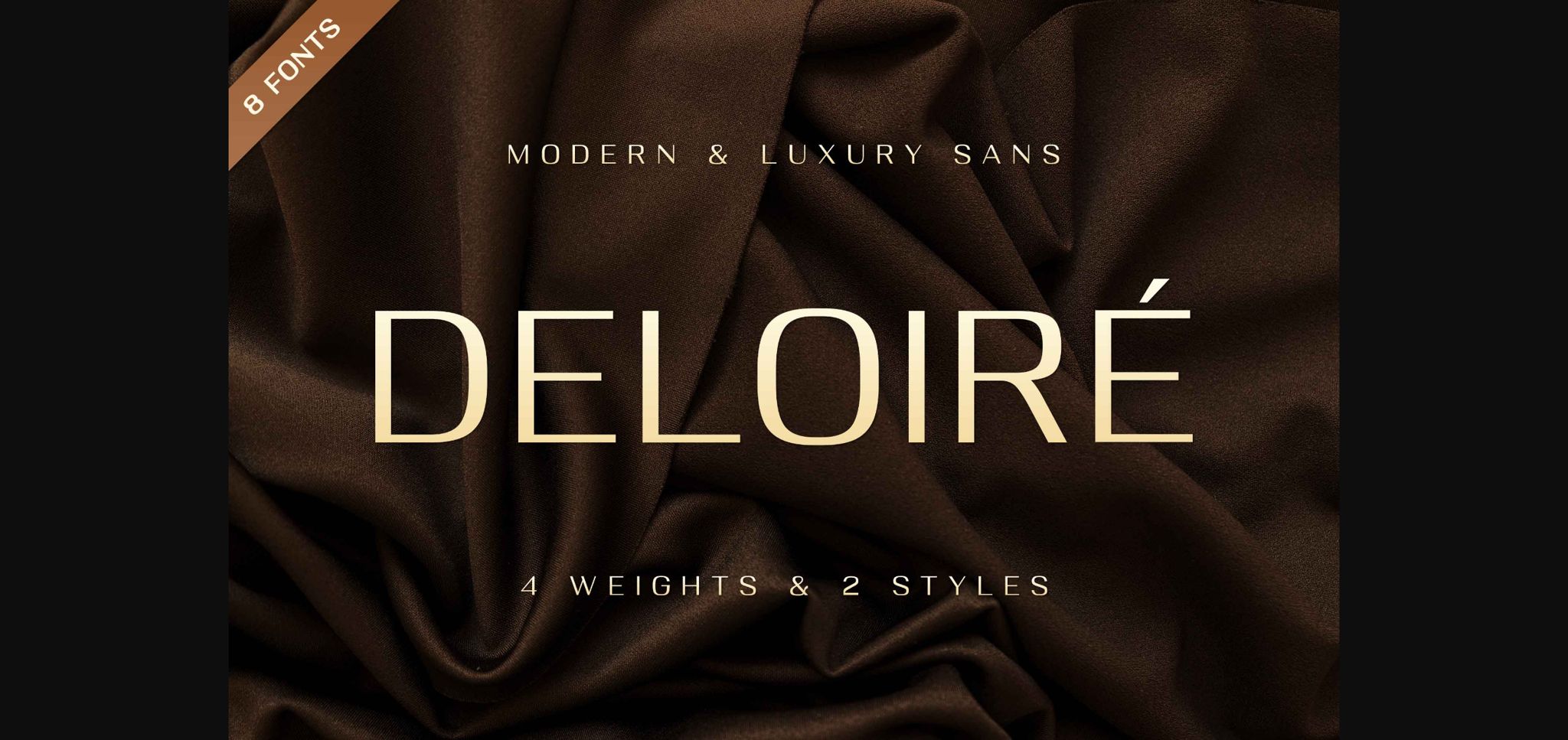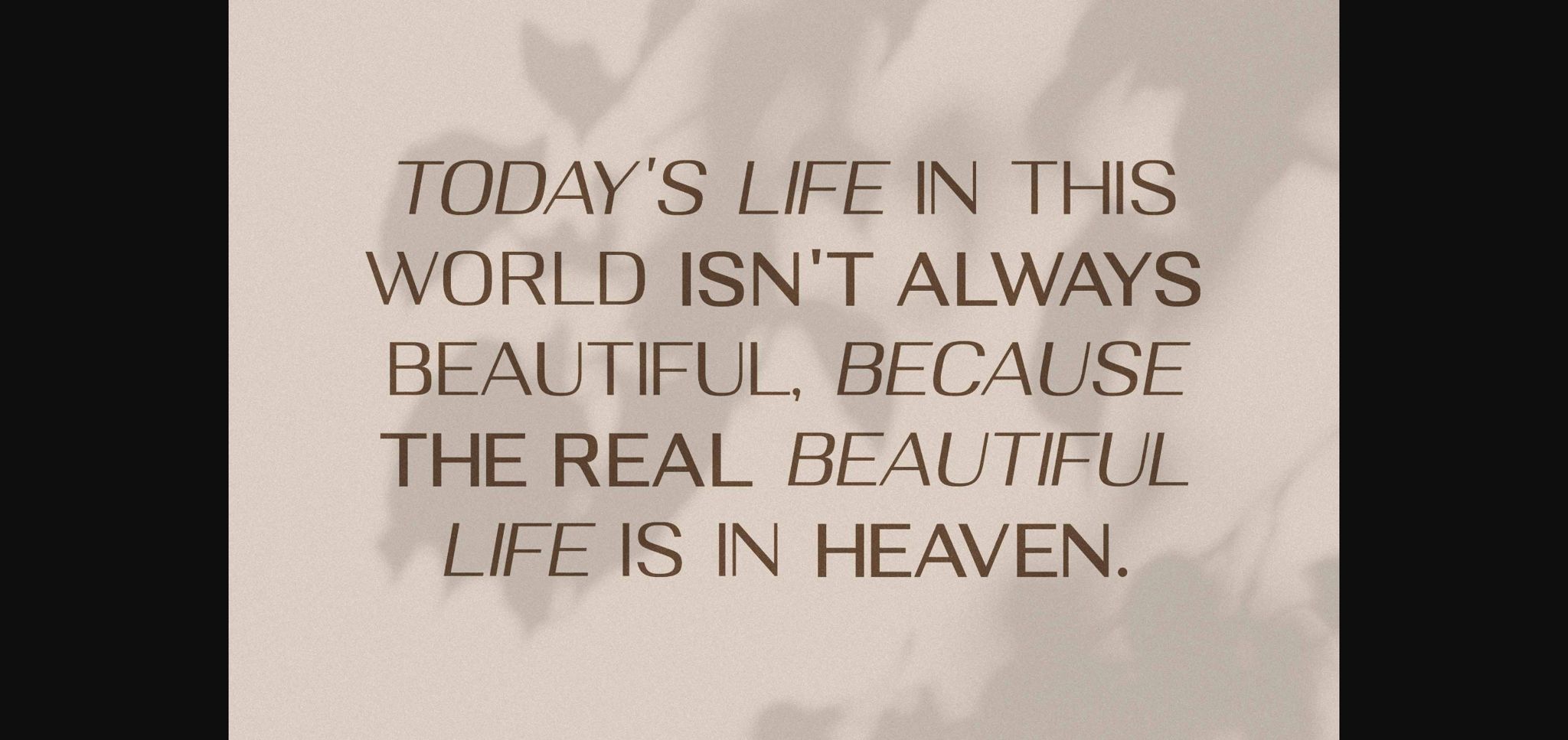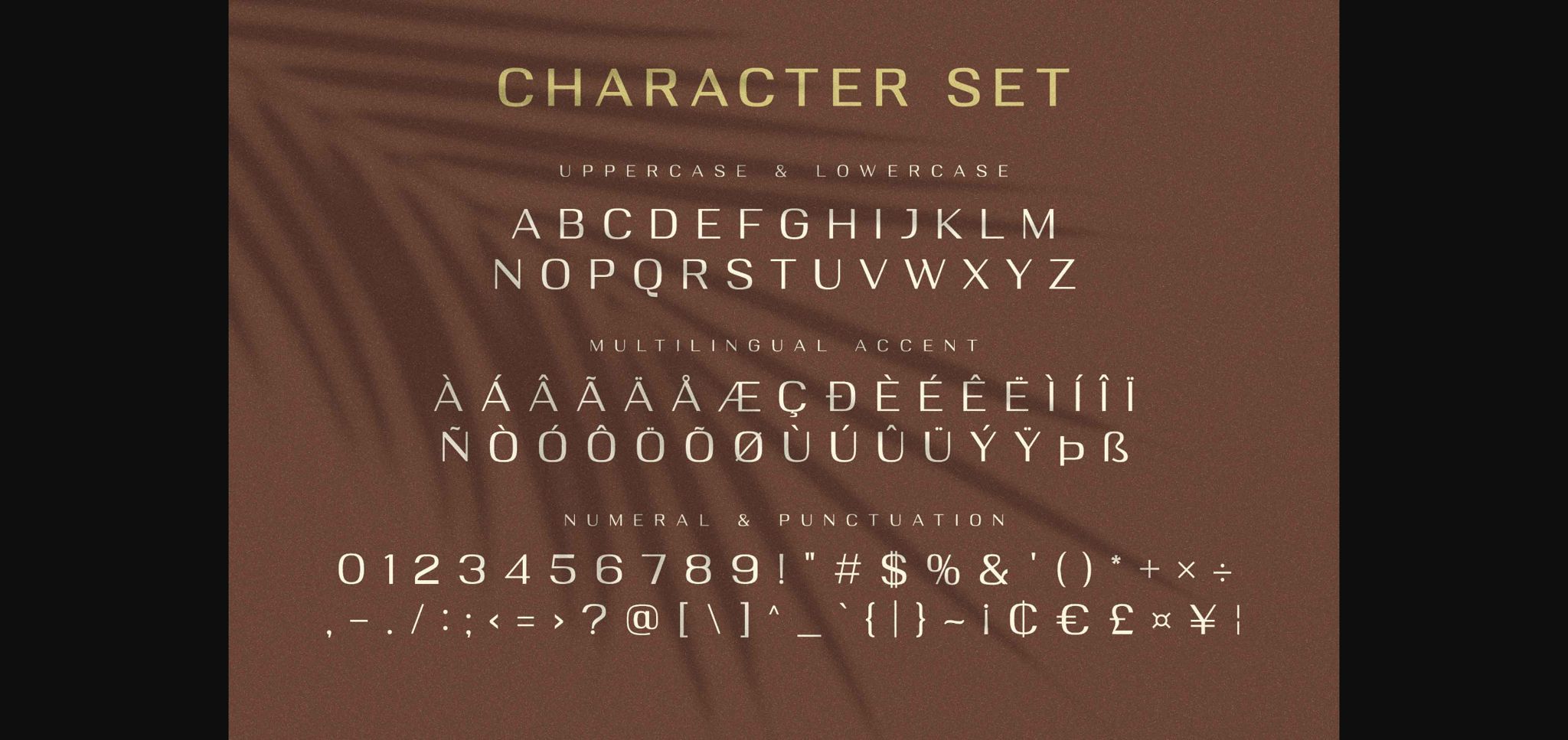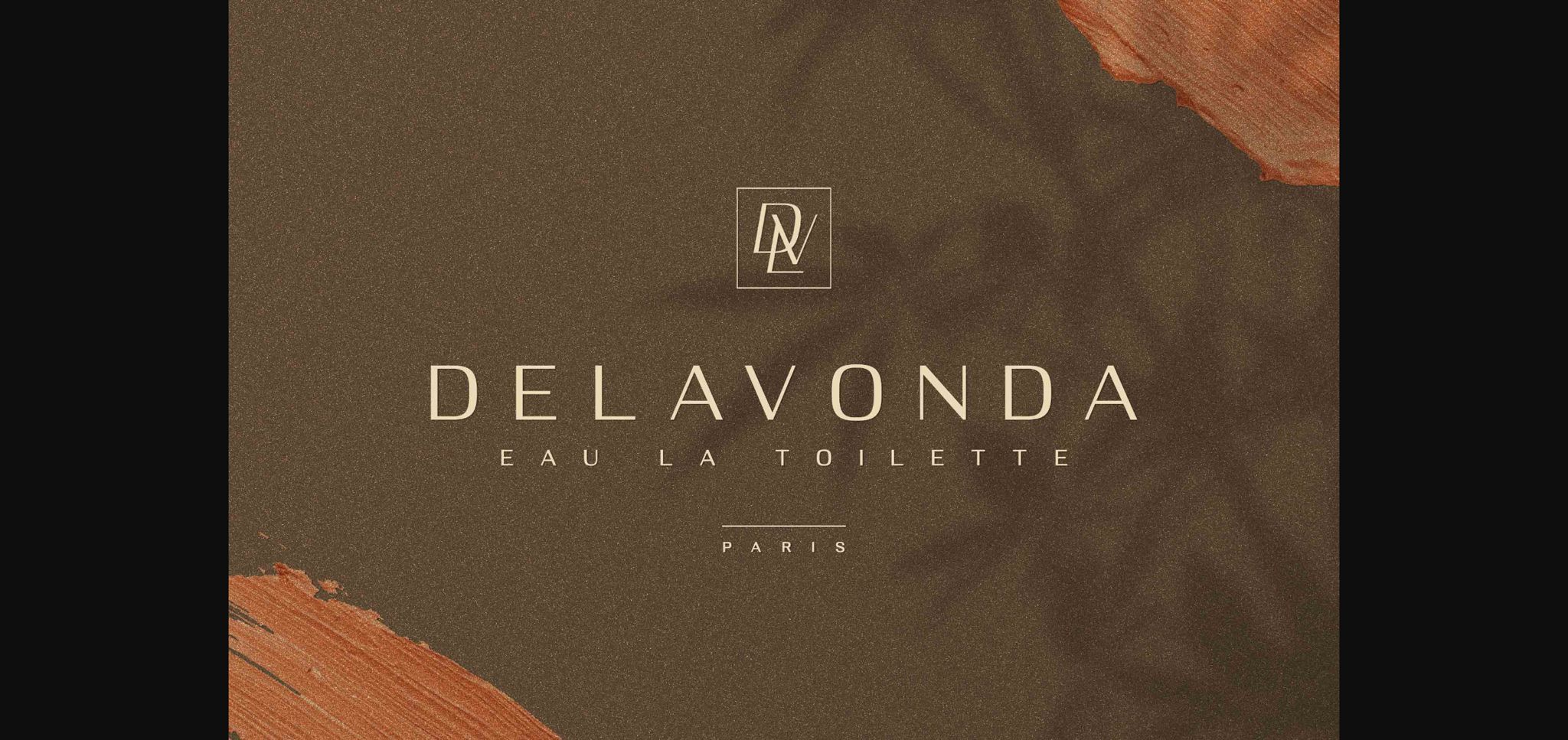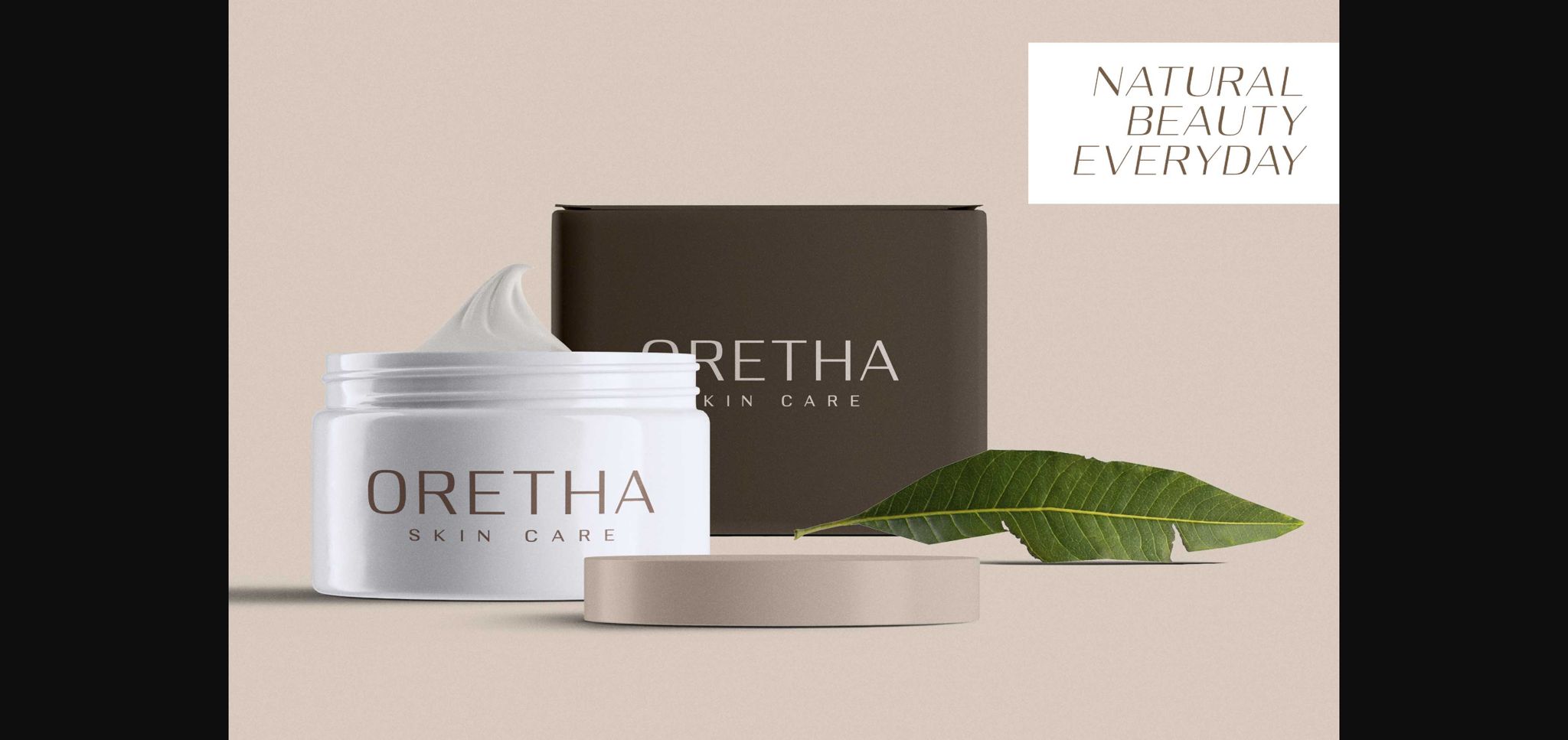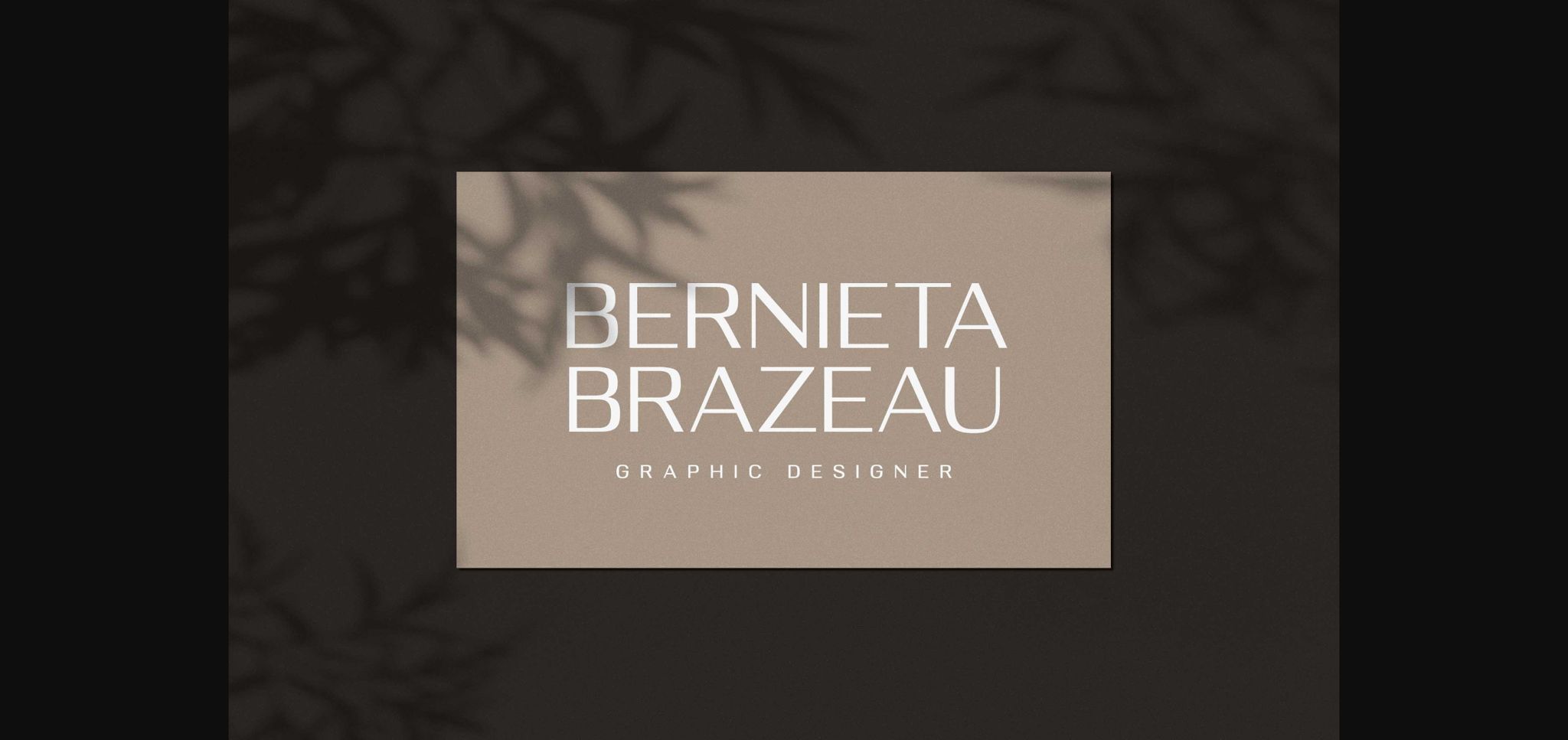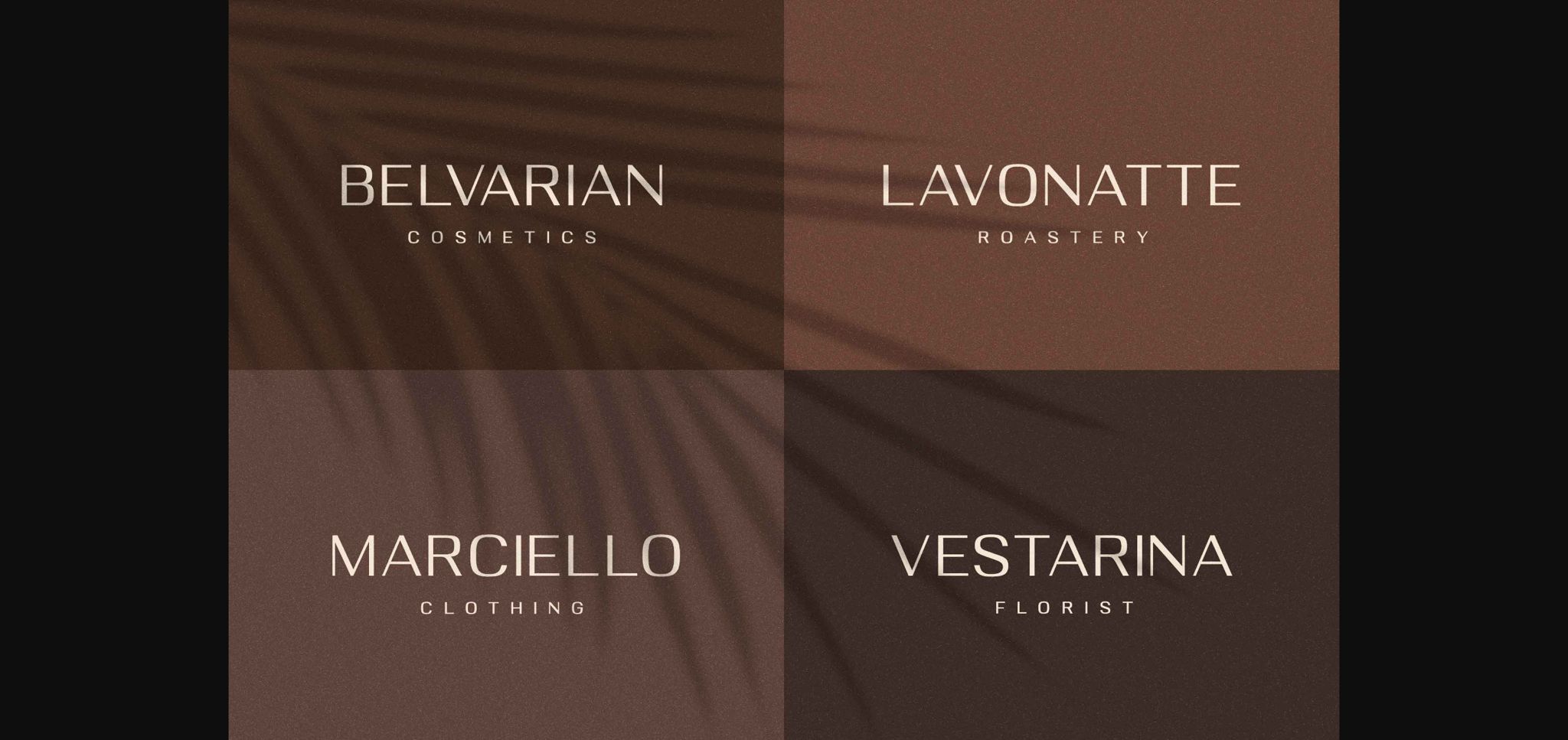
About Deloiré Font
Deloiré is a classic sans serif font. It will add an incredibly modern touch to your designs. Add this beautiful font to each of your creative ideas and notice how it makes them stand out!